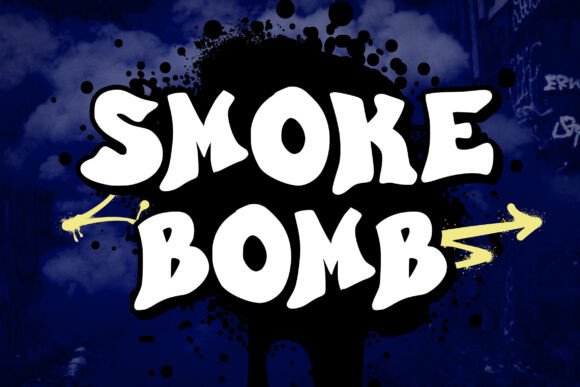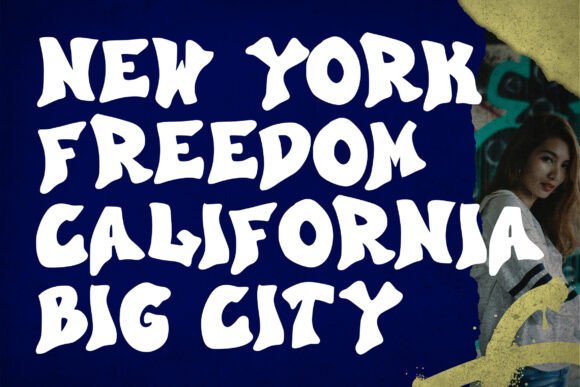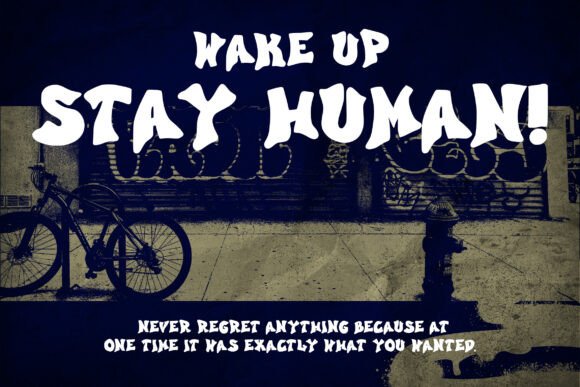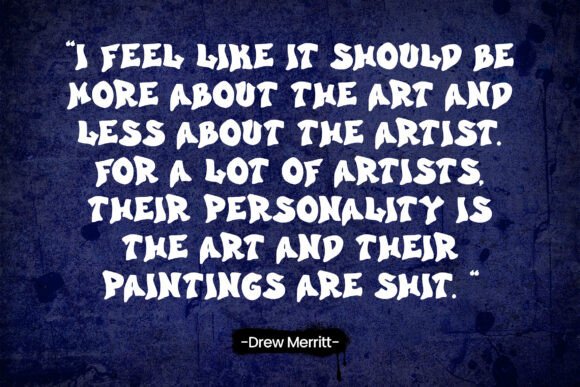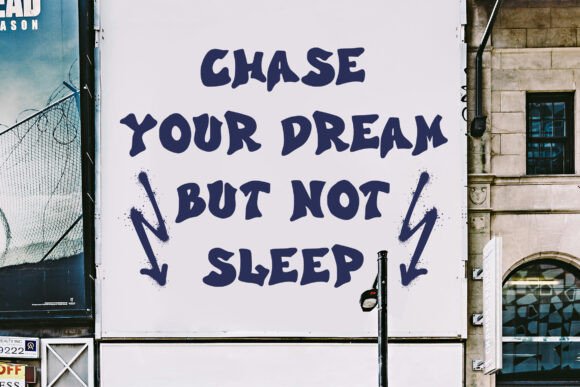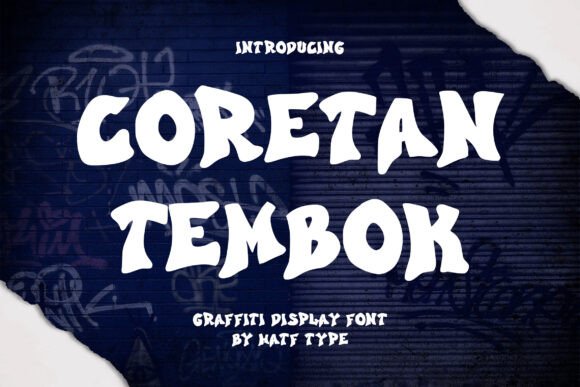
Introducing Coretan Tembok: Unleashing the Vibrant Spirit of Urban Graffiti
In the realm of typography, few fonts capture the essence of urban streetscapes and the daring spirit of defiance as effectively as Coretan Tembok. This vibrant graffiti font is teeming with individuality, crafted with raw, untamed, and passionate strokes that epitomize the unfiltered essence of street art. For designers and crafters seeking to infuse their projects with a shot of audacity and flair, Coretan Tembok is an excellent choice.
The Inspiration Behind Coretan Tembok
Coretan Tembok draws its inspiration from the pulsating energy of urban streetscapes, where creativity knows no bounds and self-expression is paramount. The font’s design is rooted in the rebellious and daring spirit of graffiti art, which has long been a staple of urban culture. Each stroke, each curve, and each letterform is a testament to the limitless potential of street art as a means of communication and self-expression.
Design Characteristics of Coretan Tembok
Coretan Tembok is characterized by its raw, untamed, and passionate design. The font features bold, expressive lines and a dynamic rhythm that echoes the energy of urban streets. The letterforms are crafted to convey a sense of movement and fluidity, as if they are dancing across the page. This font is not for the faint of heart; it’s for those who dare to be different, who crave to make a bold statement, and who see the world as a limitless canvas waiting to be explored.
Perfect for Striking Posters, Gritty Urban Designs, and Dynamic Album Covers
Coretan Tembok is an incredibly versatile font, suitable for a wide range of design applications. Its bold and daring personality makes it an excellent choice for:
- Striking posters that demand attention
- Gritty urban designs that require an edgy aesthetic
- Any project that craves a shot of audacity and flair
Unleashing Creativity with Coretan Tembok
With Coretan Tembok, every jot and tittle resonates, inviting designers and crafters to make a bold stand. This font is not just a means of communication; it’s a declaration of independence, a celebration of creativity, and a testament to the power of self-expression. Whether you’re a seasoned designer or an emerging artist, Coretan Tembok offers a unique opportunity to push boundaries, challenge conventions, and create something truly remarkable.
The Philosophy of Coretan Tembok: A Wall is a Limitless Canvas
At its core, Coretan Tembok embodies the philosophy that a wall is not merely a barrier, but a limitless canvas inviting freedom of expression. This font encourages designers and crafters to view the world from a different perspective, to see the potential for creativity in every blank space, and to transform it into something vibrant and alive. With Coretan Tembok, the possibilities are endless, and the only limit is your imagination.
In conclusion, Coretan Tembok is a vibrant graffiti font that embodies the spirit of urban streetscapes and the daring spirit of defiance. Its raw, untamed, and passionate design makes it an excellent choice for designers and crafters seeking to infuse their projects with a shot of audacity and flair. Whether you’re creating striking posters, gritty urban designs, dynamic album covers, or any project that craves a bold statement, Coretan Tembok is the perfect choice. So, unleash your creativity, make a bold stand, and let Coretan Tembok be your guide on a journey of self-expression and artistic exploration.